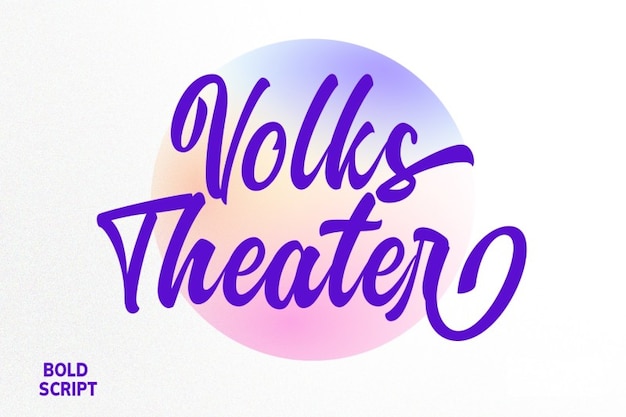
Volks Theatre Font
Volks Theatre is a font that boldly embodies the art of handwritten lettering. Its characters make a powerful statement with a strong and handcrafted charm. Whether you're designing bold headlines, impactful signage, or any creative project that demands attention, Volks Theatre effortlessly infuses your text with a striking and distinctive quality. This font captures the essence of impactful, handcrafted lettering, making it the perfect choice for those who want to make a bold statement with their work.